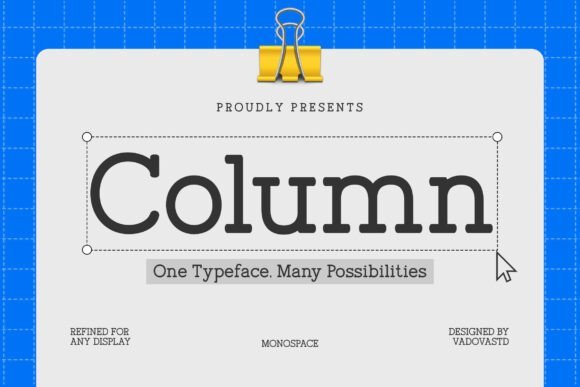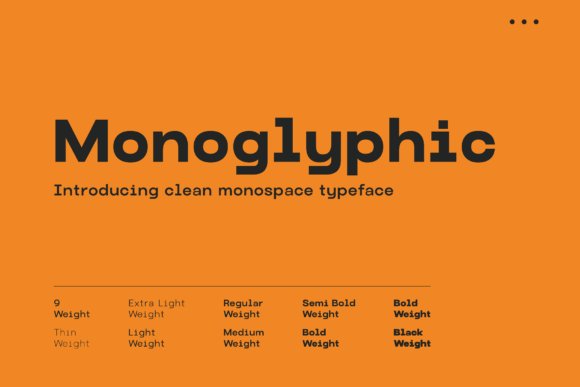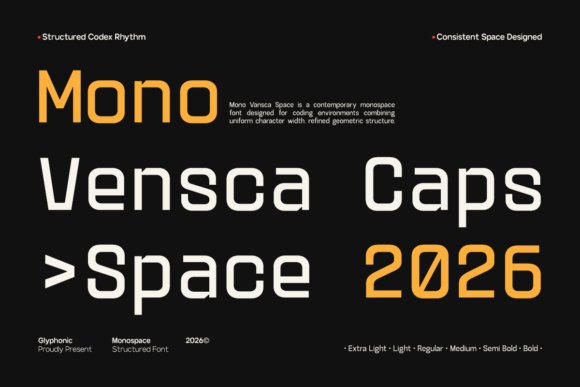
1. Mono Vensca Space
Mono Vensca Space
Mono Vensca Space pairs measured geometry with subtle terminal cuts to produce a clinical, readable monospace that feels contemporary rather than decorative. Its disciplined metrics and equal character widths make it a natural choice among minimalist monospace fonts for code editors, terminal themes, and compact UI components. The type’s steady rhythm reduces eye fatigue during long reading sessions and preserves alignment in dense tables.
The family offers open counters and clear punctuation so symbols and accented glyphs remain distinct when scanning logs or technical manuals. Fine-tuned hinting and uniform stroke widths help it render crisply at small sizes on high-density screens. I also appreciate how it balances density and whitespace, giving dense data visualizations a calm, ordered appearance.
My Recommendation: I reach for Mono Vensca Space when a project needs modern fixed-width clarity that reads comfortably at tiny sizes. It performs especially well in command-line tools, dashboard tables, and code screenshots because alignment stays predictable and readable. Use it when you want a futuristic yet pragmatic monospace that keeps content highly legible.
2. Column Font
Column Font
Column Font brings serif detailing to a fixed-width format, giving monospace a more editorial voice while keeping programmatic alignment intact. The design uses moderate contrast and broad apertures so punctuation, numerals, and diacritics remain legible across scripts. Its structured forms and generous x-height make columns of text both readable and visually distinct in print or on screen.
Because each glyph occupies the same horizontal space, Column Font lets code blocks read like typographic components within reports and brand materials without feeling misplaced. Serif terminals introduce a warm, professional character that pairs well with classical display faces and neutral UI sans. I often find it useful for academic papers, white papers, or any publication that combines narrative text with aligned technical samples.
My Recommendation: I choose Column Font when a project needs technical precision with a formal, editorial tone. It tames long blocks of aligned text while adding a refined texture that suits documentation and branded collateral. Ideal for white papers, developer guides, and identities that want a composed, typographic personality.
3. Monoglyphic Font
Monoglyphic Font
Monoglyphic is built around absolute clarity: high x-height, open apertures, and strict spacing make each glyph immediately recognizable. The design differentiates zeros from Os and keeps punctuation clean, which speeds up reading of code, hashes, and serials. Neutral stroke contrast means the type stays visually quiet and reliable across contexts.
It holds up well in terminals, web editors, and UI mockups, scaling consistently across pixel densities and sizes. Monoglyphic suits technical interfaces, data dashboards, and pixel-art inspired layouts where fixed-width rhythm is central to the look. Practical touches like tabular numerals and considered spacing make long sessions of code reading less taxing.
My Recommendation: I use Monoglyphic when legibility under constraint is the top priority; it excels in terminal themes, code samples, and dense dashboards. Its neutral voice keeps attention on content rather than decoration, which is perfect for documentation and developer tools. Pick it when you need a dependable, unassuming fixed-width face that performs across screens.
4. Heaven Mono
Heaven Mono
Heaven Mono is a monospace serif that balances technical precision with a refined, readable voice. Its steady proportions, crisp terminals, and restrained serifs set a calm rhythm across code blocks and editorial text, placing it among minimalist monospace fonts while keeping a distinct humanist touch. Subtle stroke contrast and open counters preserve clarity at small sizes and give headlines a composed, sophisticated tone.
Practically, its consistent metrics make columnar layouts and UI mockups simple to manage, and the italic and alternate sets introduce personality without breaking grid logic. The face reads reliably in documentation, IDE themes, and brand materials where a bit of warmth is wanted alongside strict alignment. It pairs especially well with neutral grotesques for labels and with heavier display faces for logotypes.